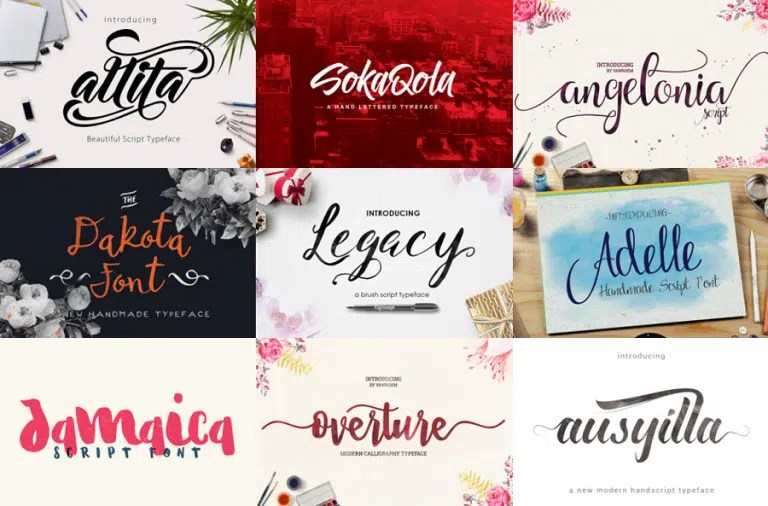
The Best Fontbundles Free Fonts Collection Ideas
New Font Collections Cutie Fonts.
Watch the sunset with september script. With the unique opentype in it and the ligature will add. Download the best fontbundles fonts from myfonts, the #1 place for web fonts
This sweet and juicy script font. Which means you can easily find something that suits your needs. We offer savings of up to 96% off fonts on a regular basis.
Most Businesses Prefer This Script For Branding, Logos, Websites, And More.
We offer savings of up to 96% off fonts on a regular basis. Here are 10 more fonts i love for all kinds of holiday projects. Browse categories such as calligraphy, handwriting, script, serif and more.
Prologue Script Lite By Font Bundles.
Pua encoded and with lots of alternates, swirls and swashes september. 101,700 downloads (1 yesterday) free for. Discover the best free fonts of the week curated by the fontspace community.